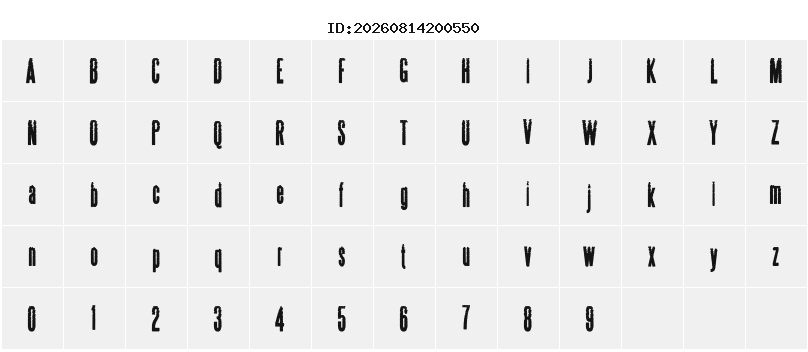
• Font Name: Steelfish Dots
About Steelfish Dots.ttf
Steelfish Dots.ttf is a modern, elegant sans-serif font designed for ultimate readability and visual harmony. Perfect for branding, headlines, web design, and print materials.